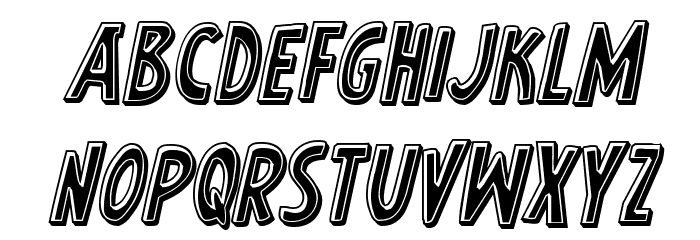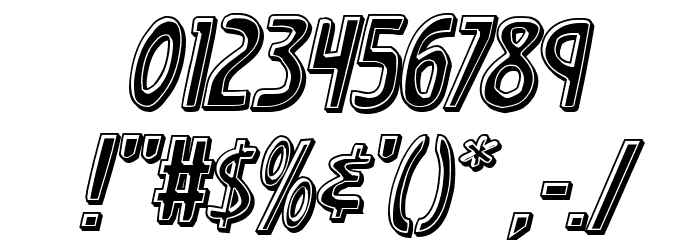
Earth's Mightiest Bevel Italic Font
This font features a bold and dynamic style with a distinct bevel effect that gives it a three-dimensional appearance. The italicized form adds a sense of motion and energy, making it stand out in any design. The uppercase and lowercase letters are consistent in their boldness, with a slight slant that enhances the italic effect. The numbers and special characters maintain the same stylistic features, ensuring uniformity across all characters. The font's thick strokes and sharp angles contribute to its strong visual impact, making it ideal for attention-grabbing headlines and titles.
A bold, italicized font with a three-dimensional bevel effect.
- Proposed Projects: Ideal for comic book titles, movie posters, video game covers, and any project requiring a bold, dynamic look.